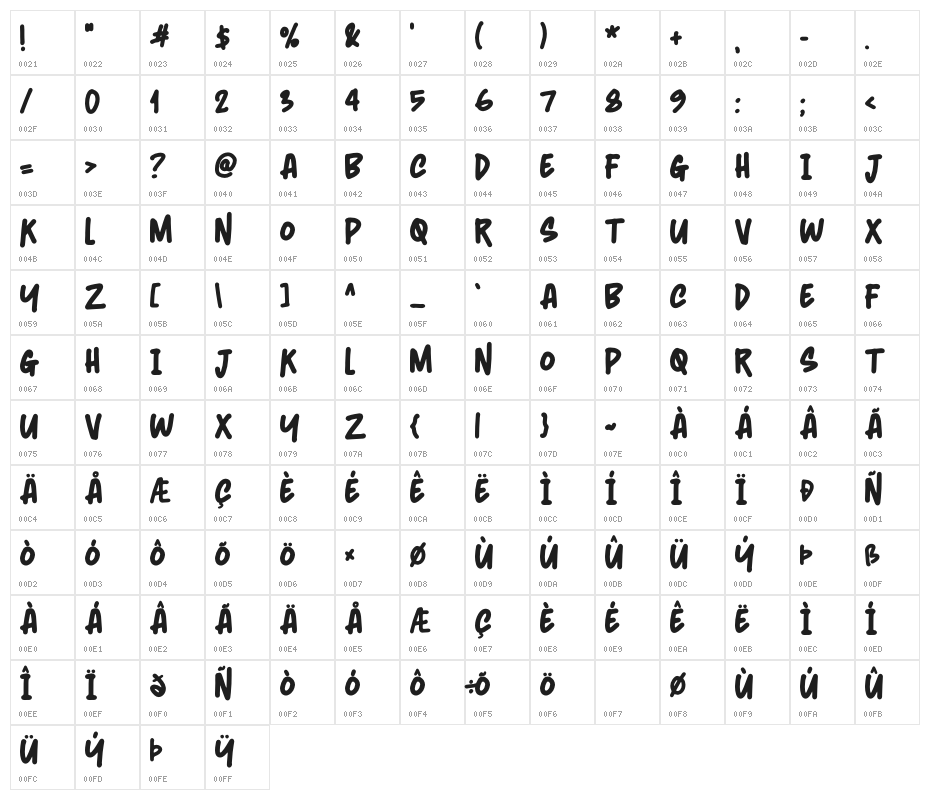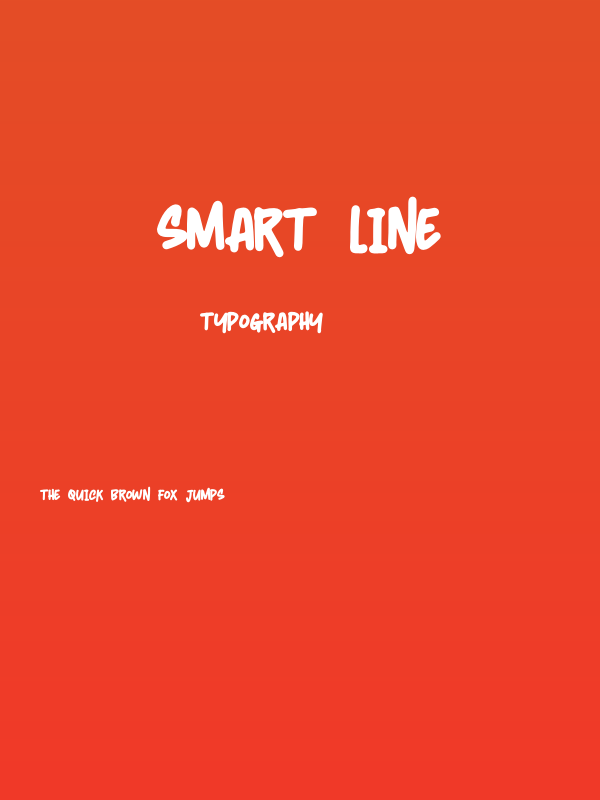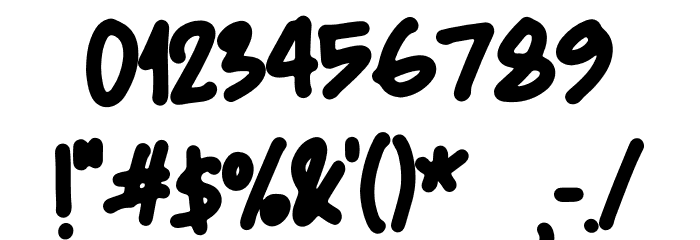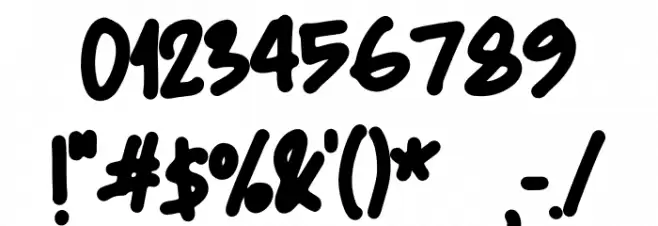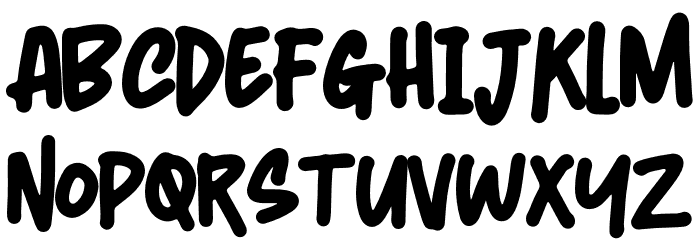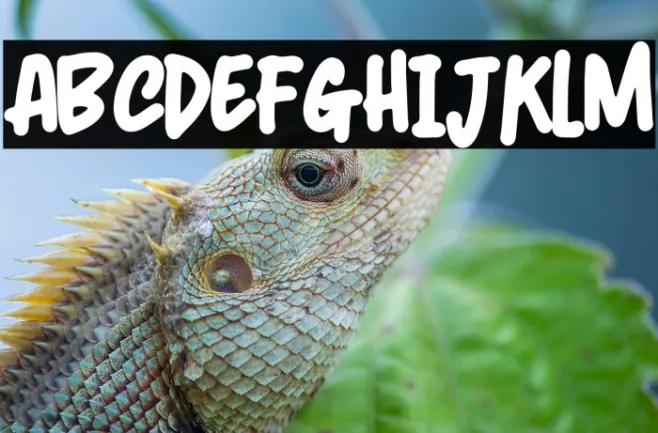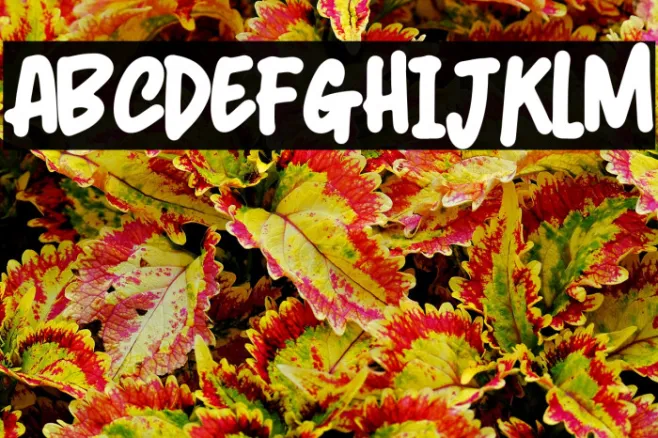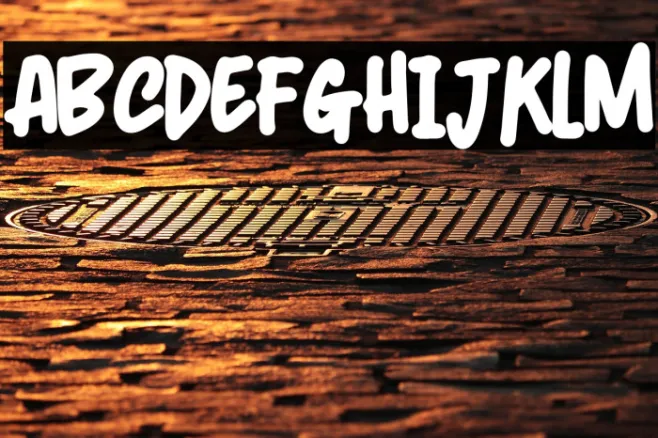
Smart Line Font
Smart Line Description
A bold, handwritten font with a playful and casual style, featuring rounded edges and a consistent stroke width.
SMART-LINE UPPERCASE
SMART-LINE LOWERCASE
SMART-LINE OTHER CHARS
| Use Case | Headlines, Informal text |
| Proposed Projects | Greeting cards, posters, informal branding. |